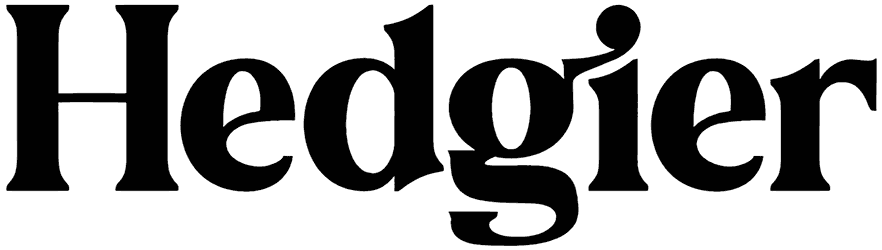
Hedgier Font
Creating a lovely classic outward can be an ideal choice for many designs with any theme, and this magazine font is able to make it happen. Hedgier has a timeless and matchable face that could be used for formal or informal projects. Even with no support for numbers, this item will illustrate your coming designs from postcards to branding with a confident mood.